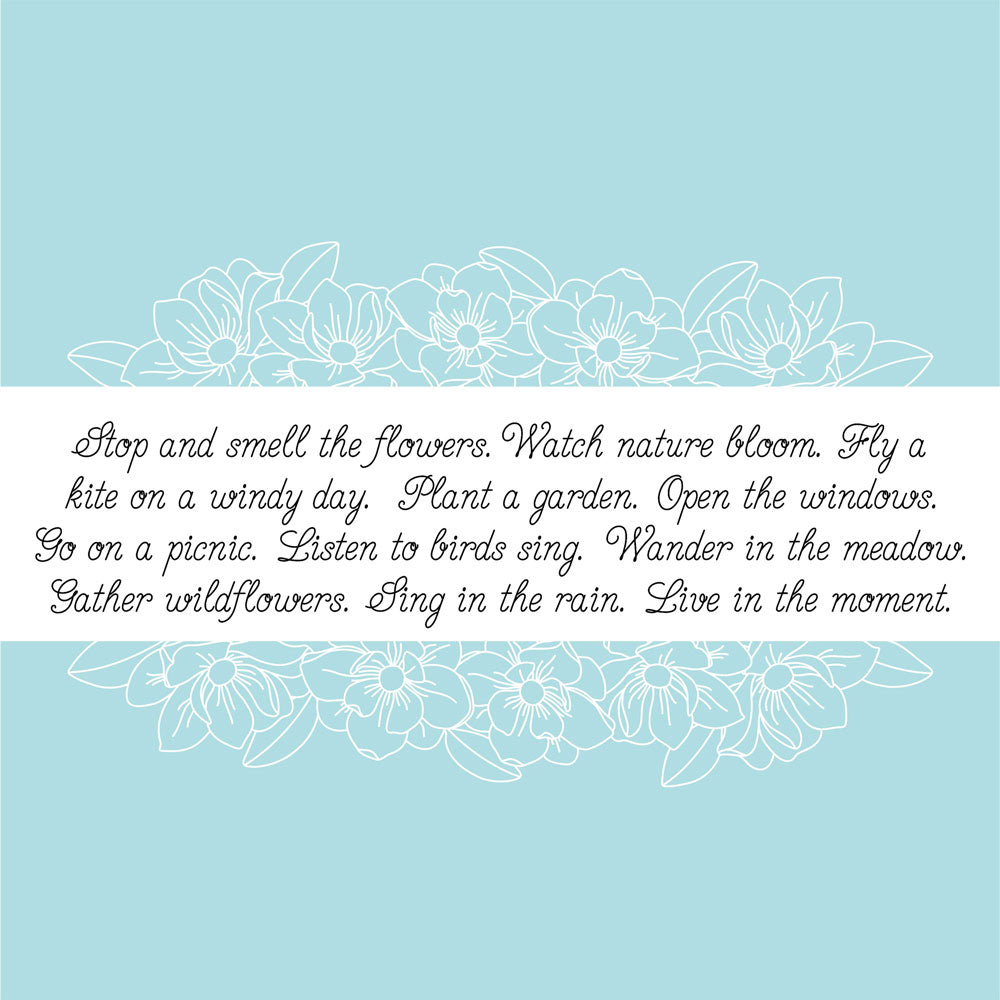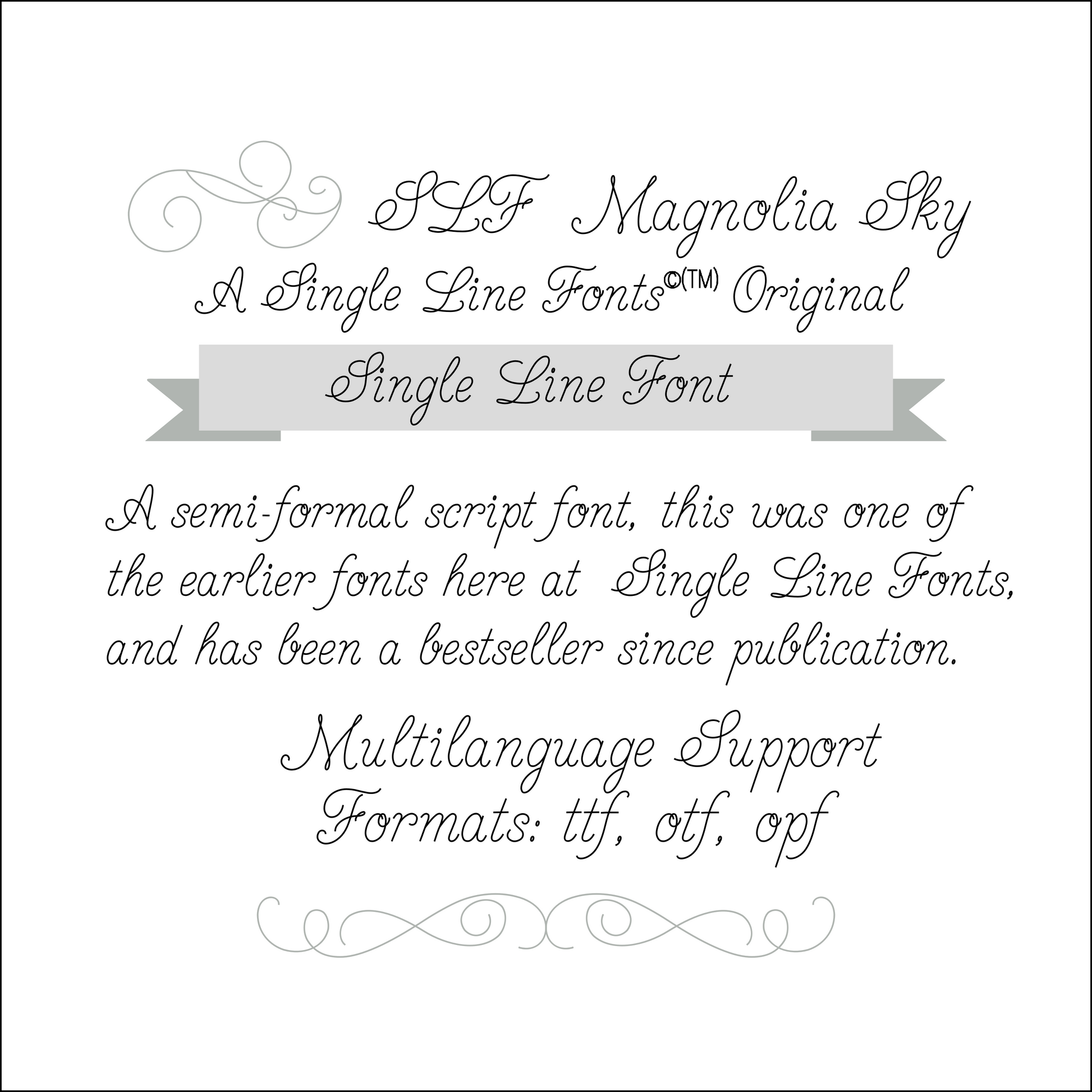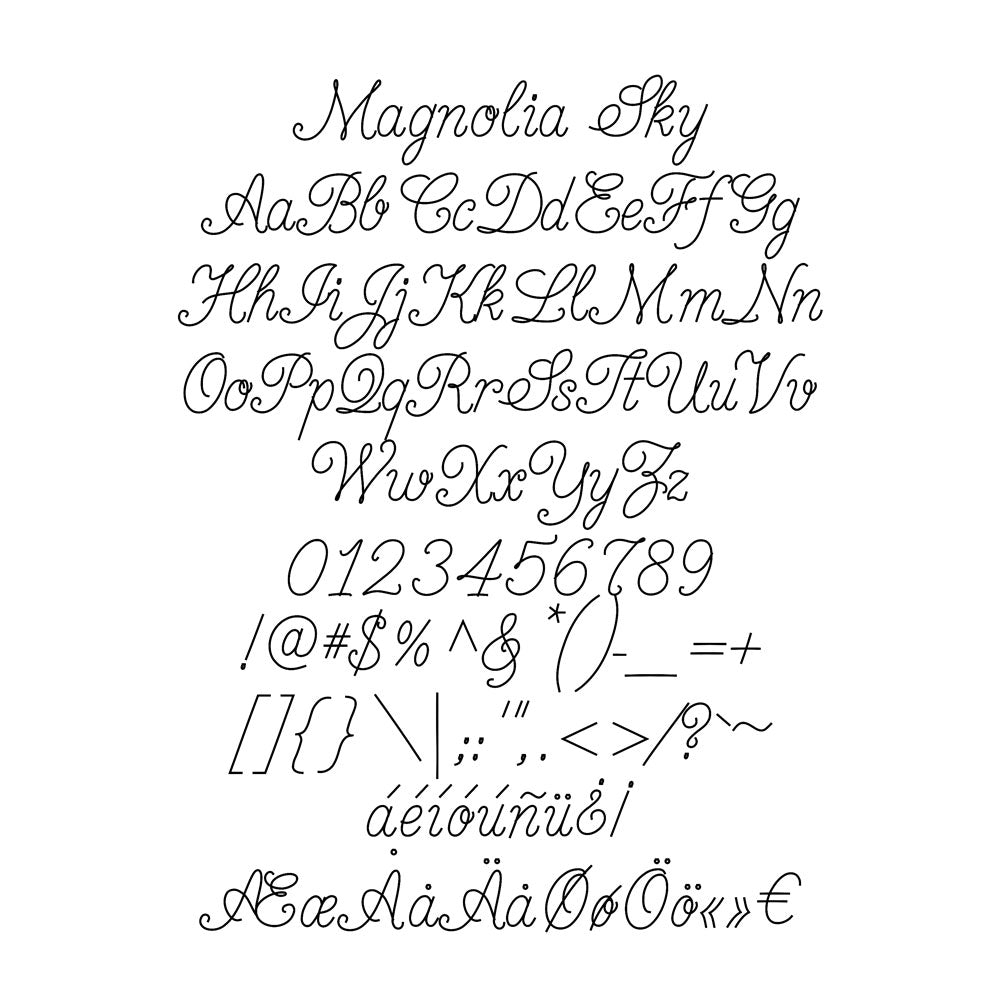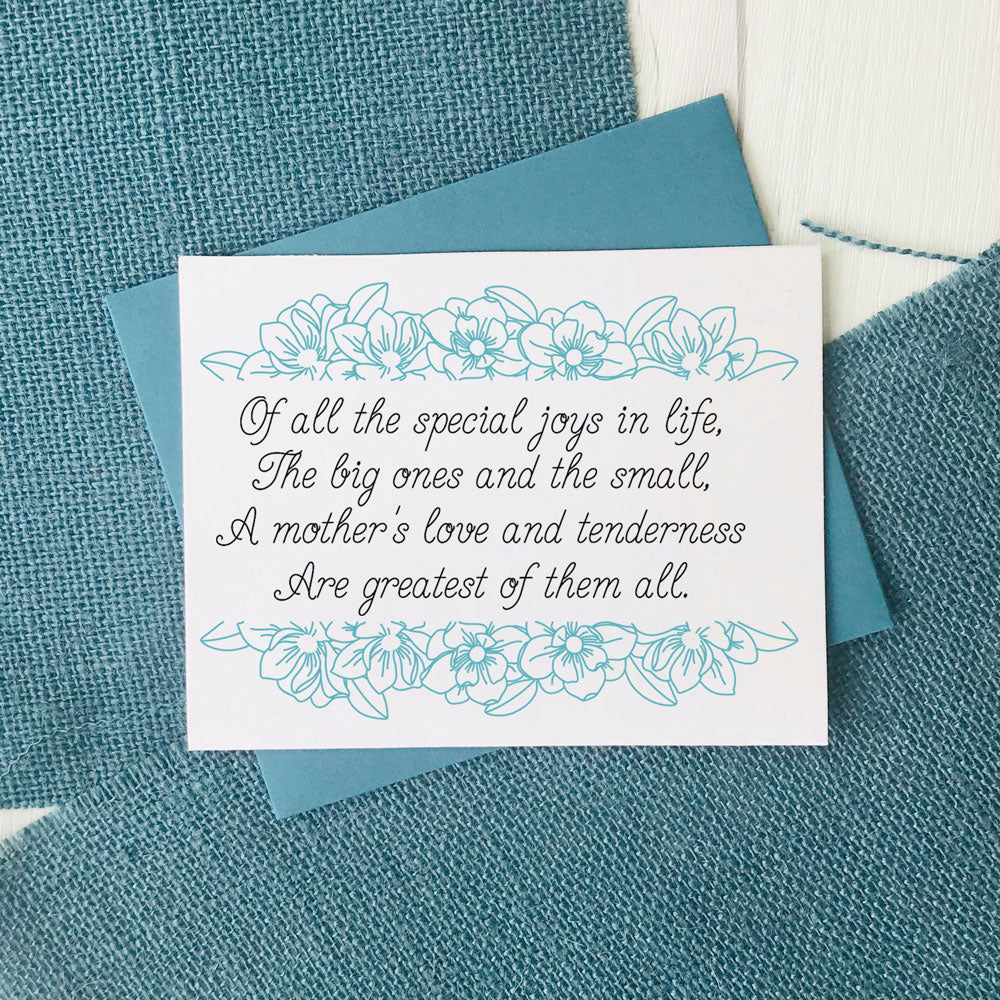
Single Line Font "SLF Magnolia Sky" With BONUS Magnolia Border
SLF Magnolia Sky
This font comes with a single-line design of a hand-drawn border of magnolia leaves. I hope you enjoy these as much as I enjoyed creating them for you! And most of all, I can’t wait to see your creations using them.
Because true type format fonts must have what we call “closed paths”, these will draw the line 2 times in the exact same place. To get around this, we created these fonts with no outlines. Instead, the lines trace over themselves once and then "close".